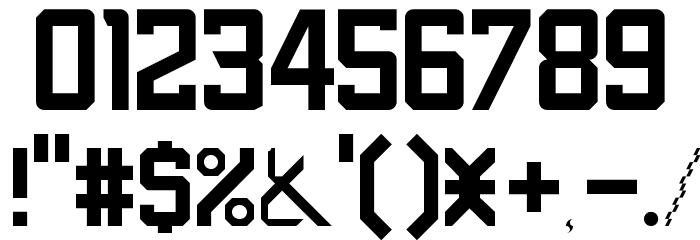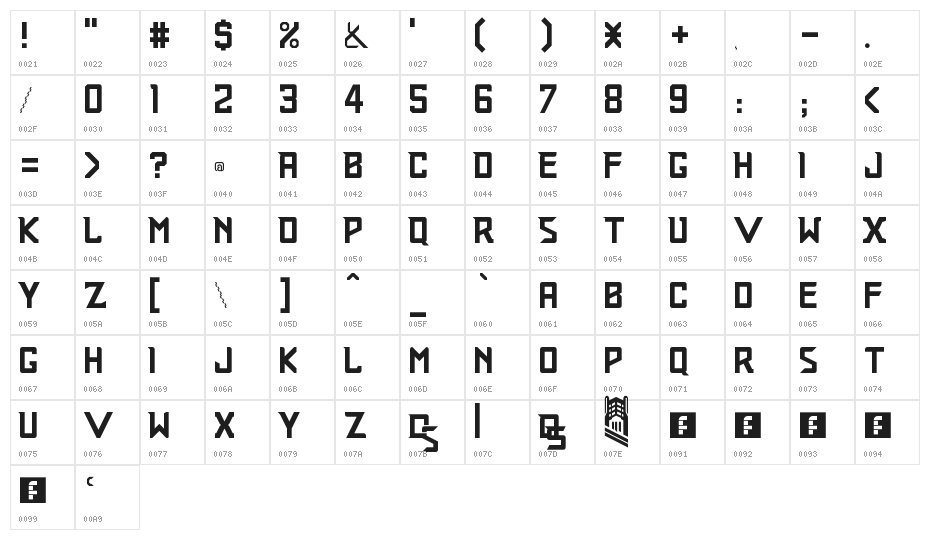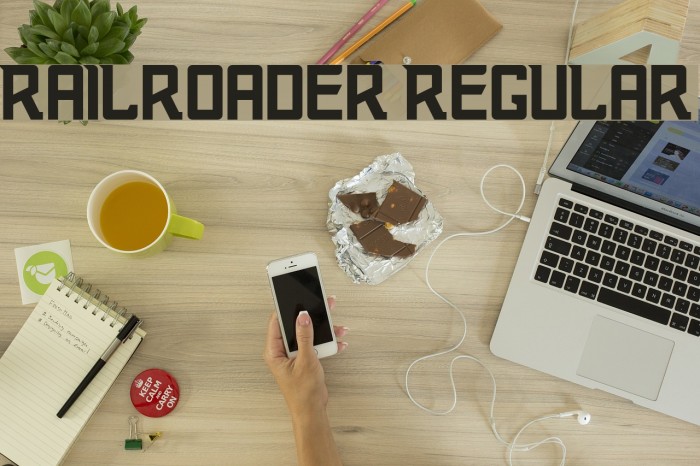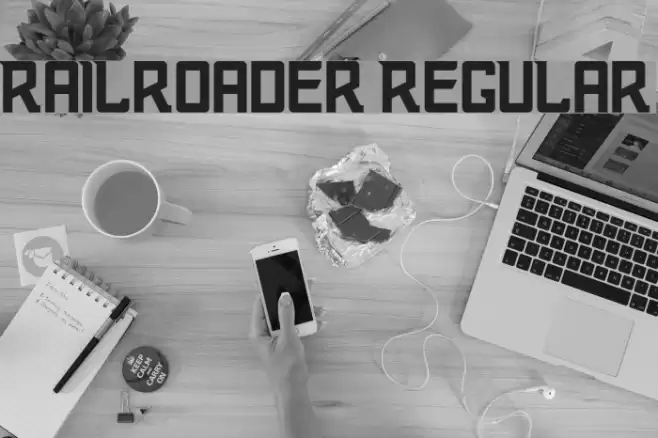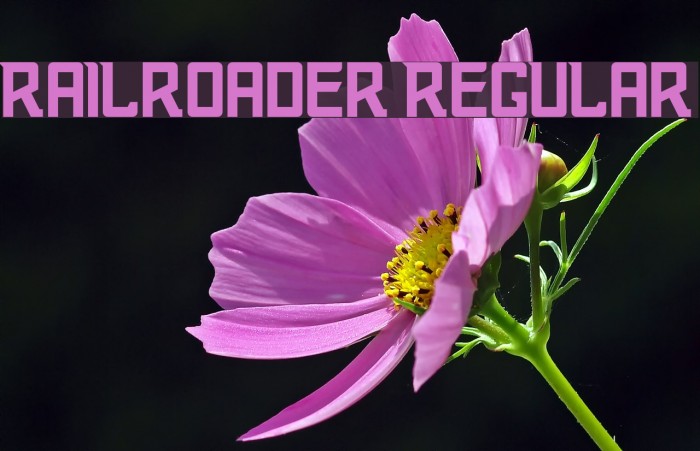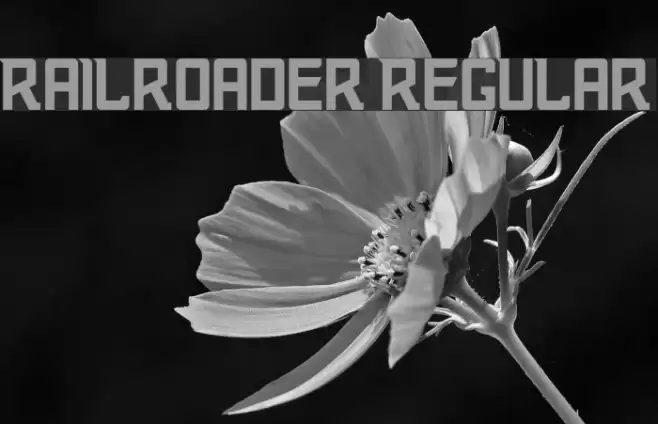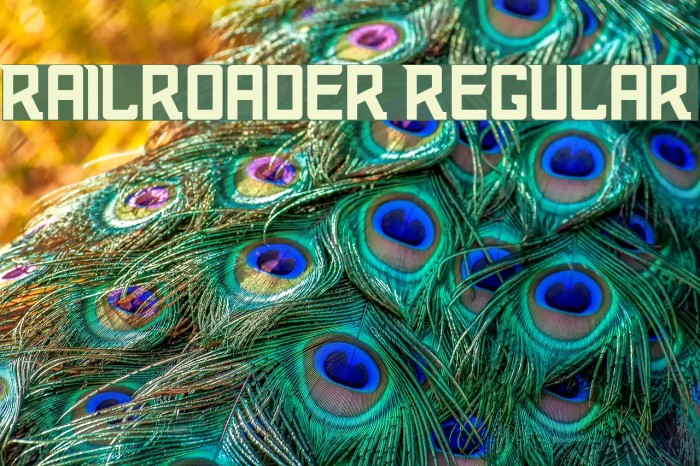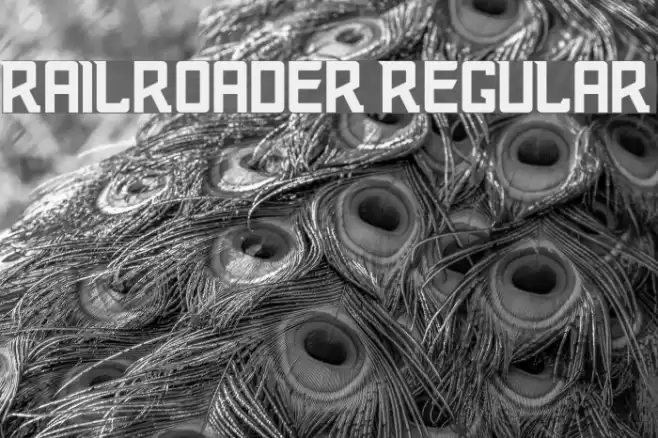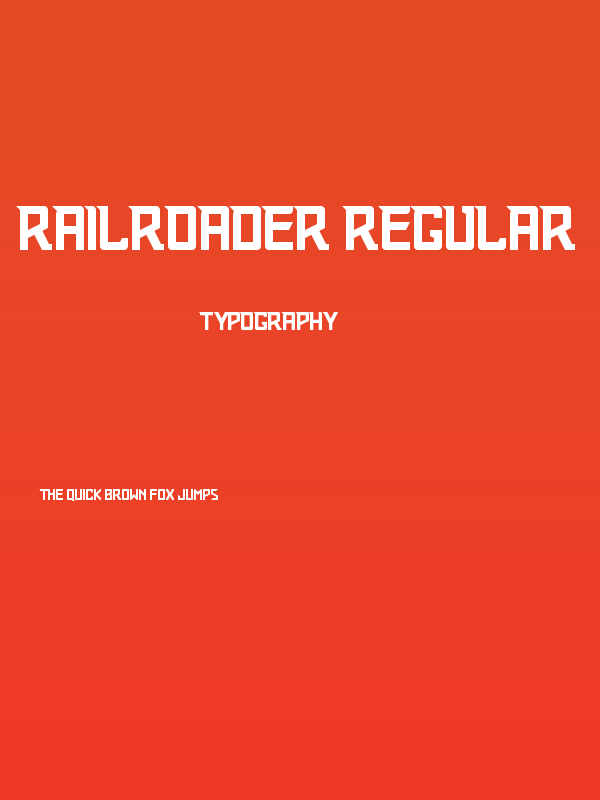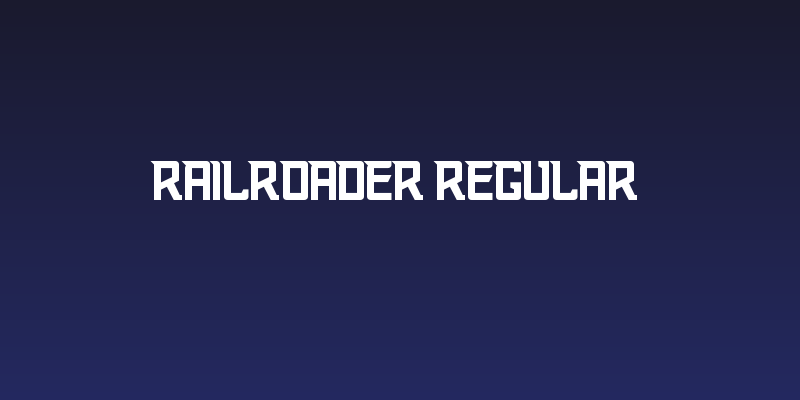
Railroader Regular Font
Railroader Regular Description
This font features a bold and geometric design, characterized by its strong, angular lines and industrial aesthetic. The uppercase letters are uniform in height, with sharp edges and a mechanical feel, reminiscent of vintage railway signage. The lowercase letters maintain the same geometric style, offering a cohesive look across different cases. Numbers are equally bold and structured, ensuring readability and impact. Special characters are designed to match the overall industrial theme, making them suitable for various applications. The font's distinct style makes it ideal for projects that require a strong, authoritative presence.
| Overall Style | Vintage, Industrial |
| Use Case | Headlines, Logos, Signage |
| Proposed Projects | Ideal for branding, signage, posters, and any project needing a strong, industrial look. |